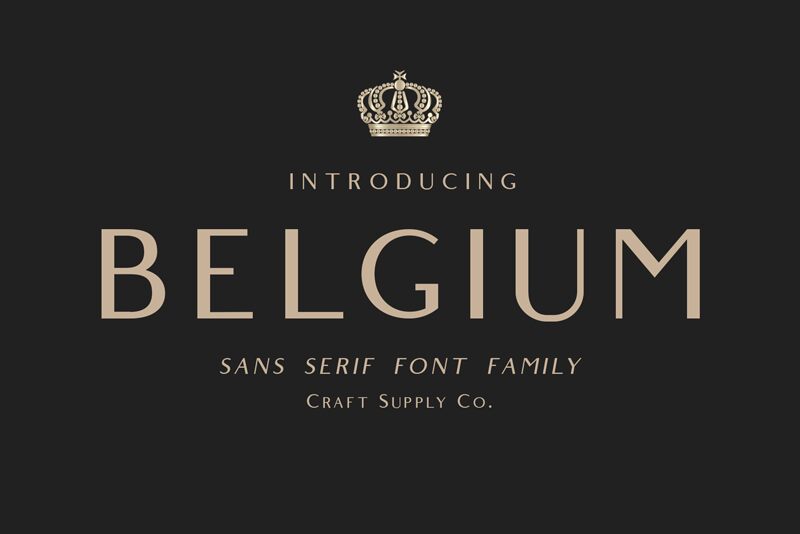
Belgium Rounded Demo Regular
Belgium Rounded font, part of the Belgium font family by Craft Supply Co., embodies a charming and approachable rounded sans serif style. Its smooth curves and gentle lines create an inviting aesthetic, perfect for both modern and classic design palettes. The expanded letterforms amplify its friendly vibe, making it ideal for branding projects that seek to communicate warmth and reliability.
This free font is particularly suited for digital interfaces, packaging, and advertising materials where readability and approachability are key. Designers can easily download Belgium Rounded to add an element of sophistication that maintains clarity across various mediums. With its blend of elegance and simplicity, this font offers a versatile solution for enhancing creative projects with a unique touch.
Craft Supply Co